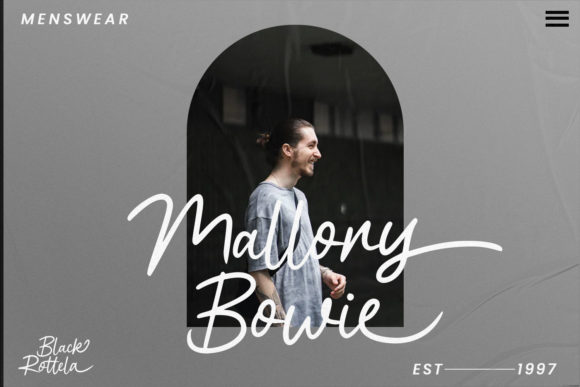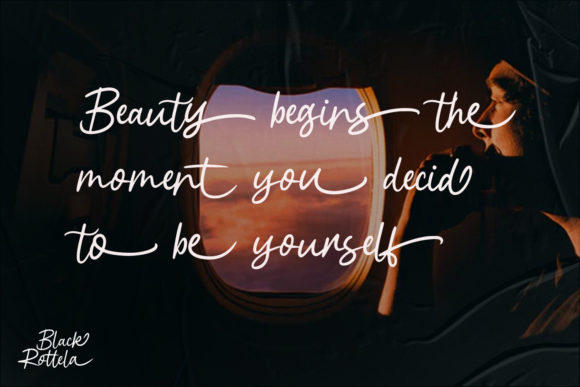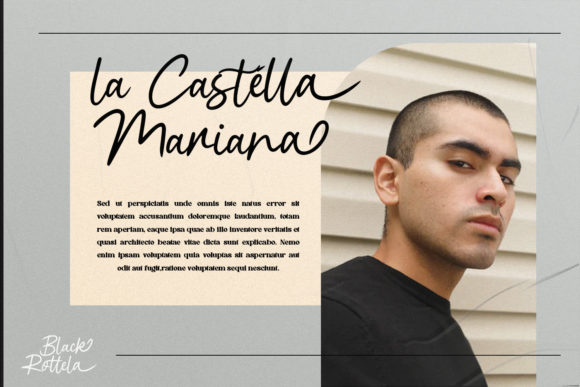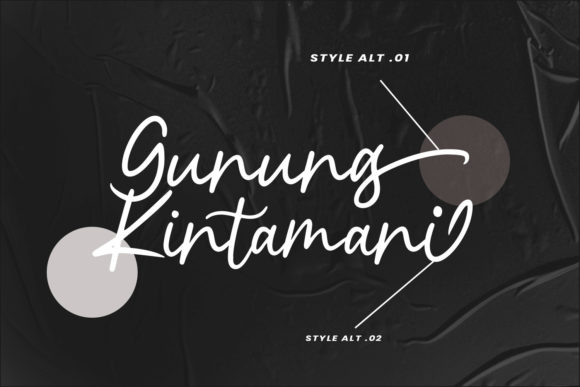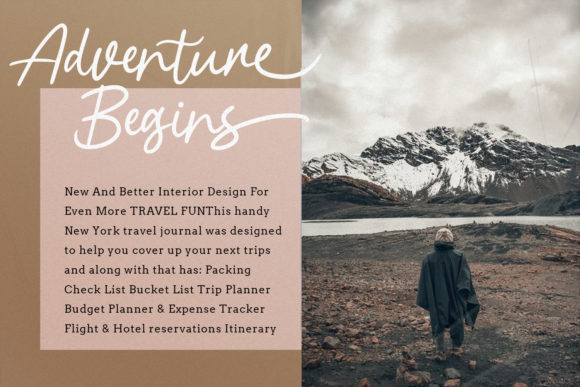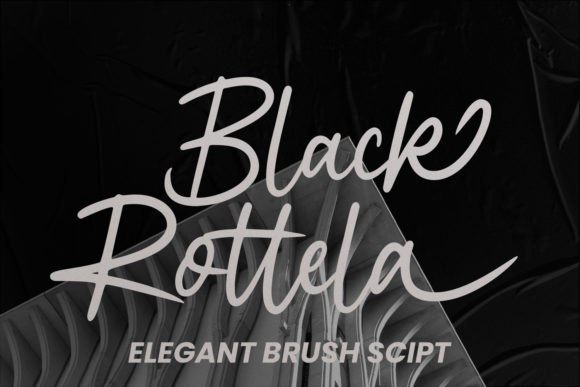
Introducing Black Rotela Script Font: Elevate Your Designs with Charming Playfulness
Are you on the hunt for a font that adds a touch of whimsy and charm to your creative projects? Look no further than the Black Rotela Script Font. This beautiful script font is designed to bring a sense of playfulness and elegance to your designs, making it perfect for crafters, designers, and anyone looking to add a personal touch to their work.
The Unique Charm of Black Rotela Script
Black Rotela Script is a lovely script font that features charming, playful characters that seem to dance along the baseline. Each letter is carefully crafted to bring a sense of movement and fluidity to your designs, making it perfect for projects that require a touch of personality. Whether you’re working on a logo, invitation, or social media graphic, this font is sure to make your design stand out.
One of the standout features of the Black Rotela Script Font is its PUA (Private Use Area) encoding. This means that you can access all of the beautiful glyphs and swashes with ease, giving you complete creative control over your designs. With PUA encoding, you can use the font’s built-in features to add flourishes and decorations to your text, taking your designs to the next level.
Black Rotela Script Font is perfect for a wide range of creative projects, including:
- Invitations and event materials
- Product packaging and labels
- Stationery and paper crafts
Why Choose Black Rotela Script Font?
So why choose Black Rotela Script Font for your next project? Here are just a few reasons:
- Unique and eye-catching: This font is sure to grab attention and make your designs stand out.
- Easy to use: With PUA encoding, you can access all of the font’s features with ease.
- Versatile: This font is perfect for a wide range of creative projects.
- High-quality: The font is carefully crafted to ensure a high level of quality and consistency.
Tips for Using Black Rotela Script Font
Here are a few tips for getting the most out of Black Rotela Script Font:
- Experiment with different sizes: This font looks great in a variety of sizes, from large headings to smaller body text.
- Play with swashes and glyphs: Use the font’s built-in features to add flourishes and decorations to your text.
- Pair with complementary fonts: Try pairing Black Rotela Script Font with a complementary font to create a unique and eye-catching combination.
Black Rotela Script Font is a beautiful and versatile font that’s perfect for designers and crafters looking to add a touch of whimsy and charm to their creative projects. With its PUA encoding and range of features, this font is sure to become a go-to in your design toolkit. So why wait? Download Black Rotela Script Font today and start elevating your designs with its charming, playful characters.